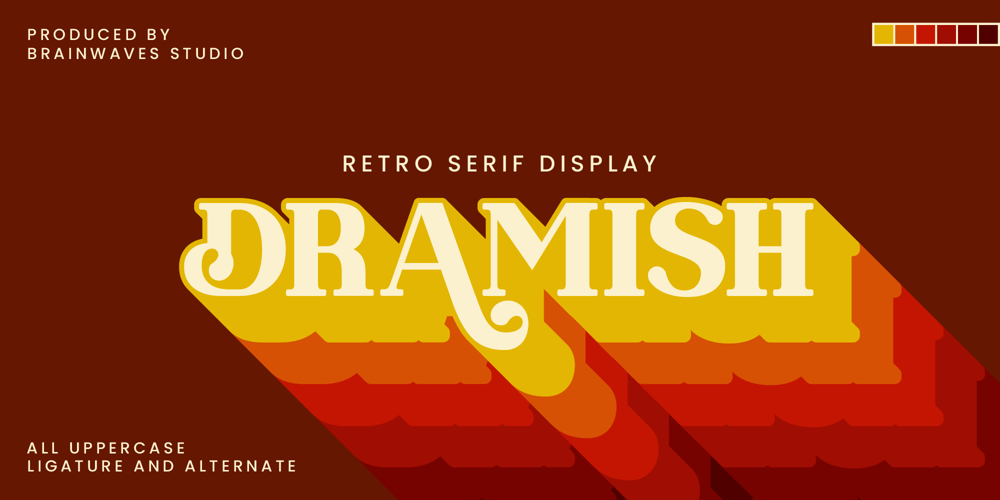
Dramish
Dramish font
Dramish Font Family was designed by Elhaq Farid and published by Brainwaves Studio. Dramish contains 2 styles and family package options. “Dramish” is a retro serif display font that blends vintage aesthetics with contemporary flair. This carefully crafted typeface showcases unique serif details and graceful curves that evoke a nostalgic feel. Perfect for a variety of design applications, Dramish offers a sophisticated and timeless look, making it ideal for titles, posters, branding, and other creative endeavors. With its bold presence and distinctive character, Dramish infuses any design project with an enchanting retro vibe.